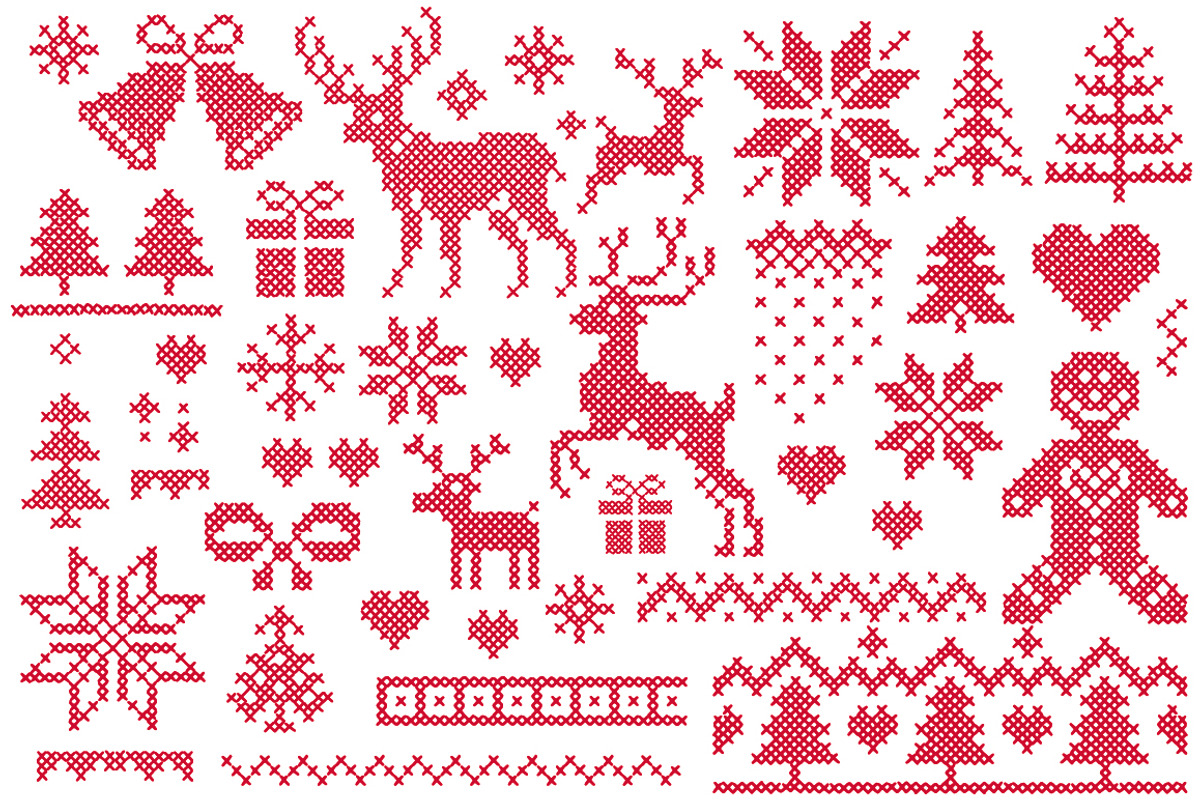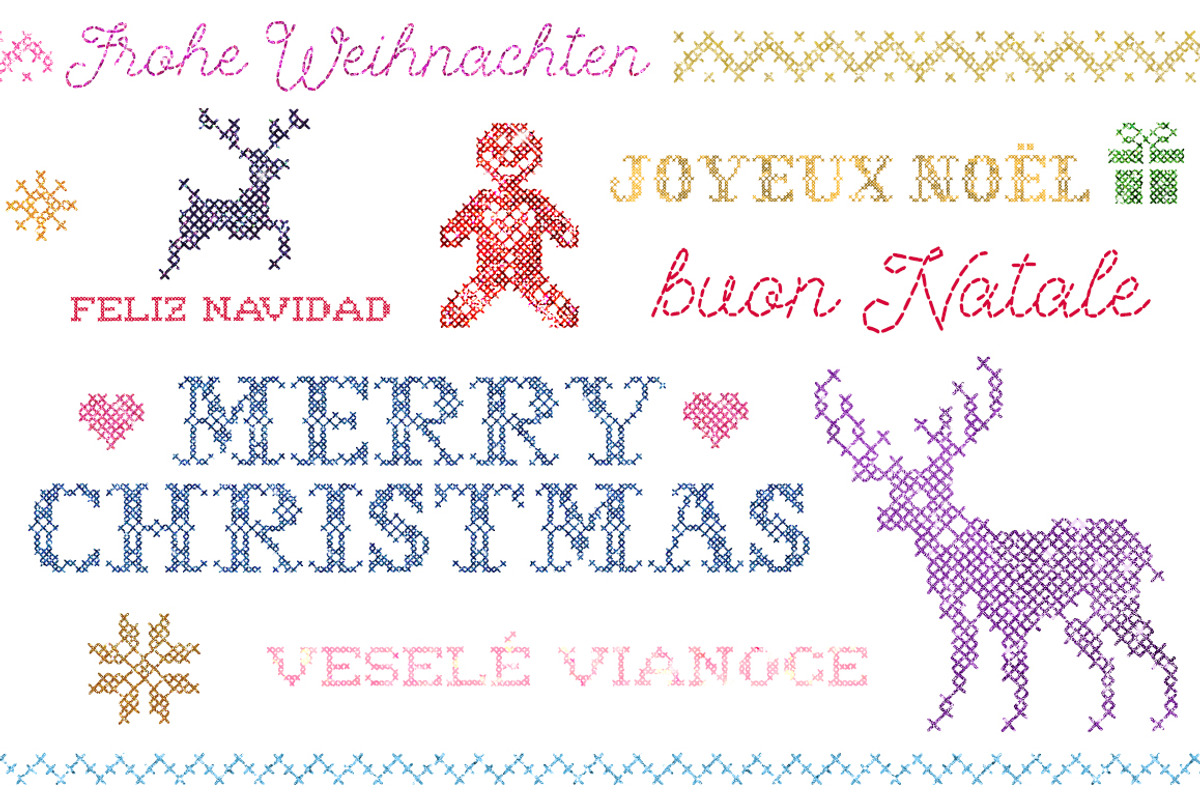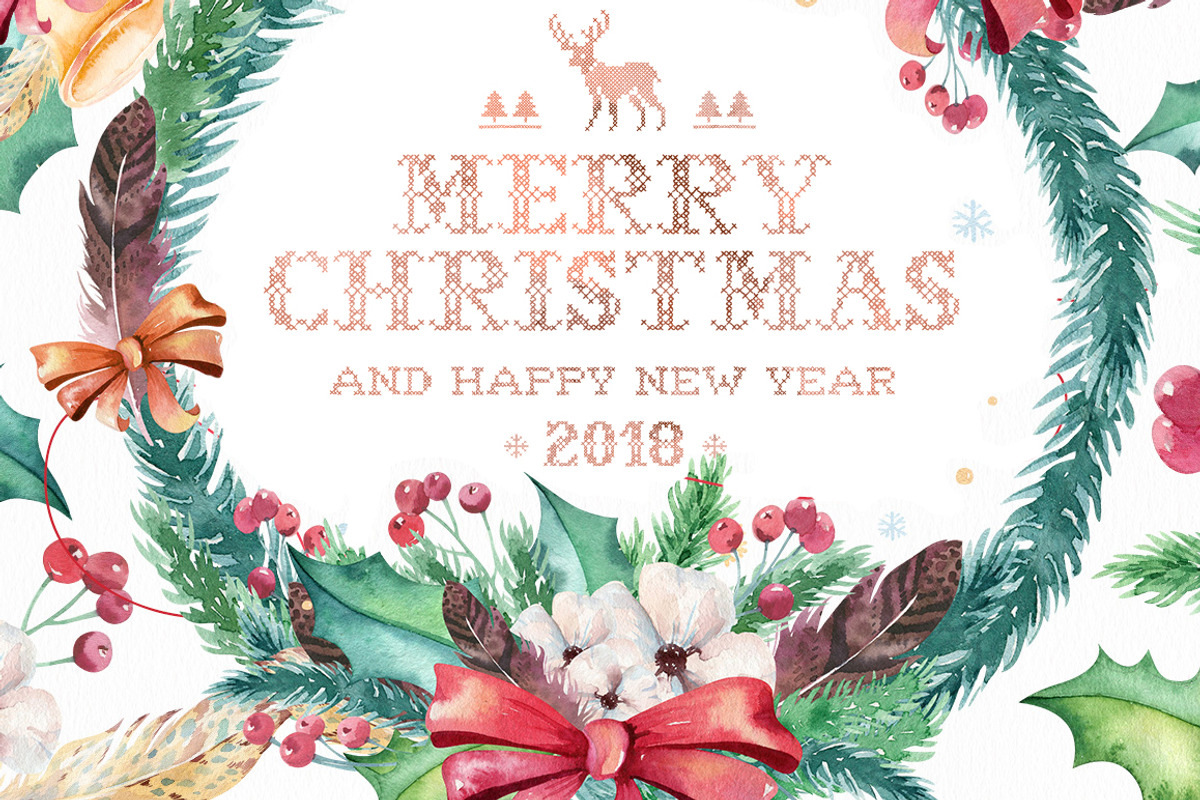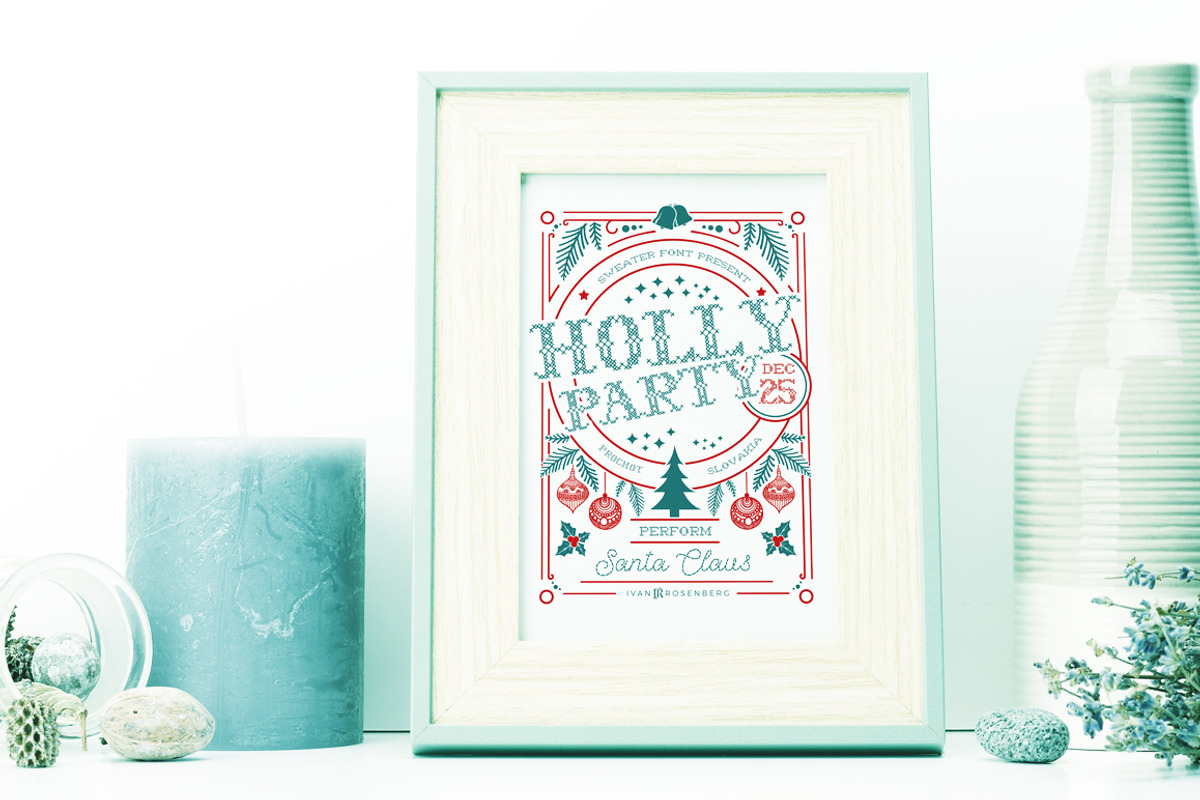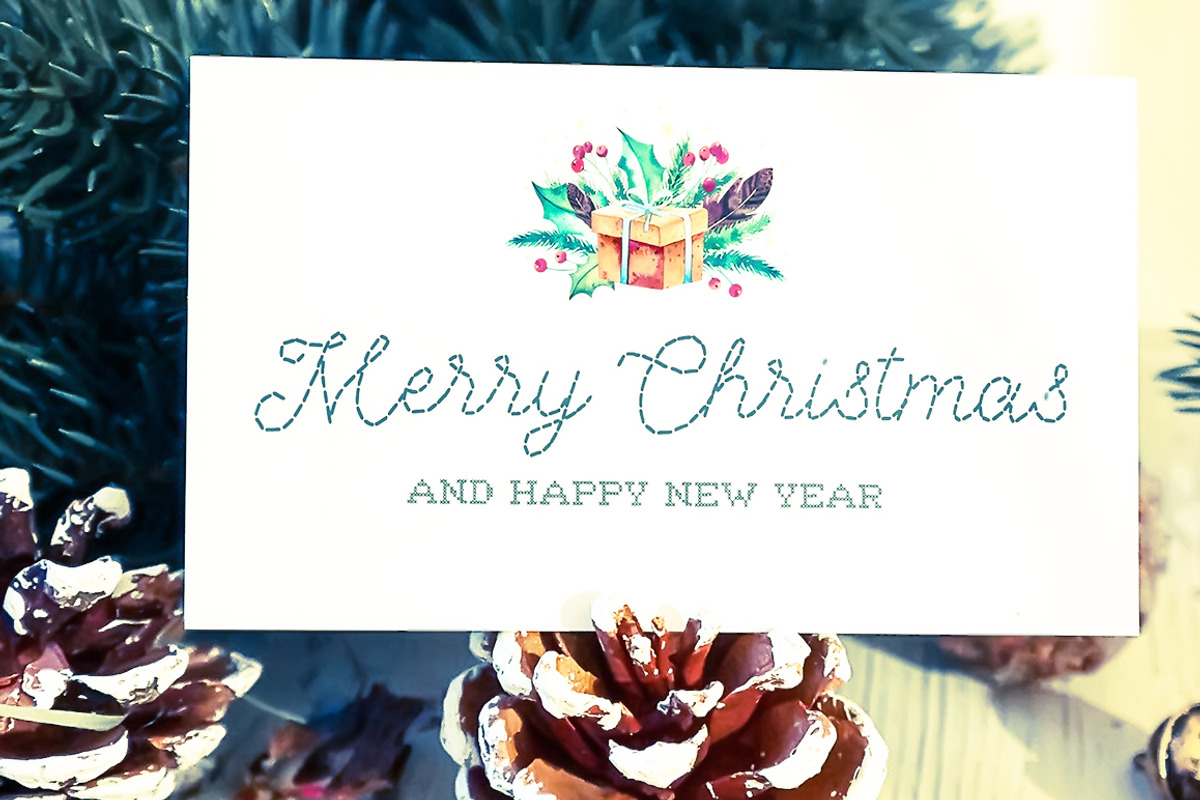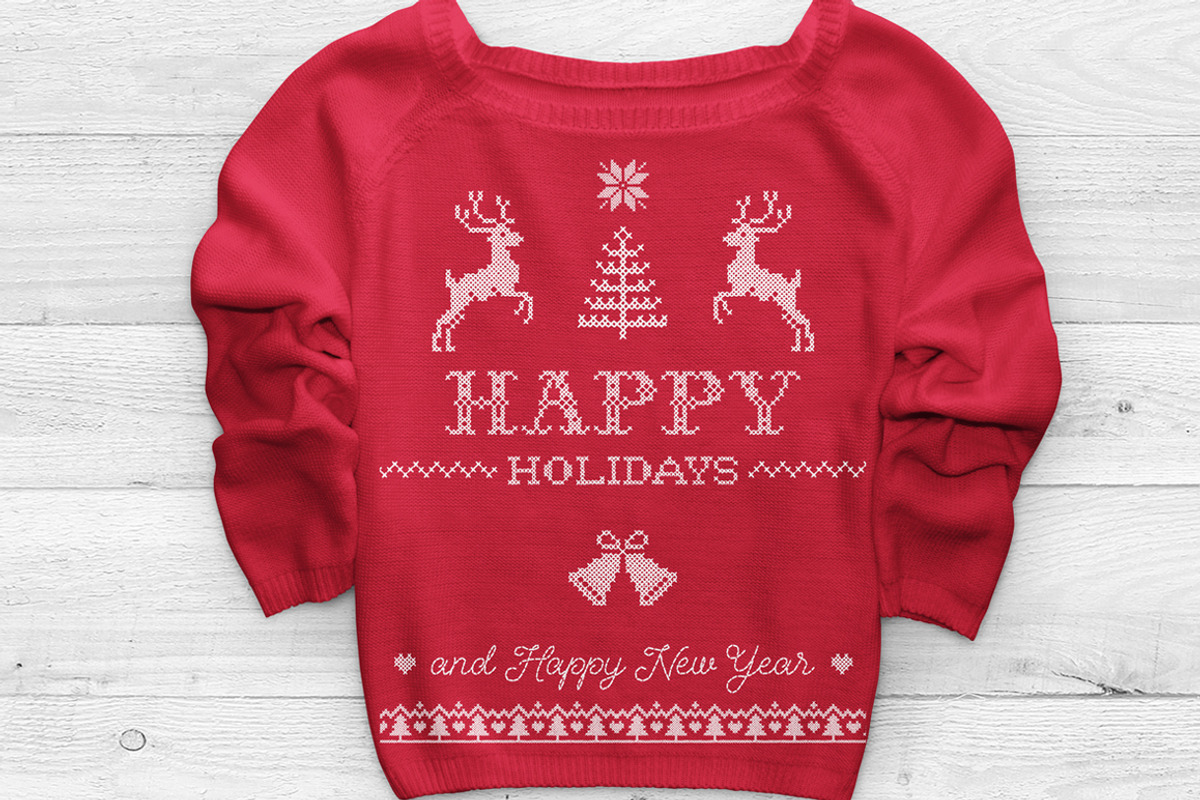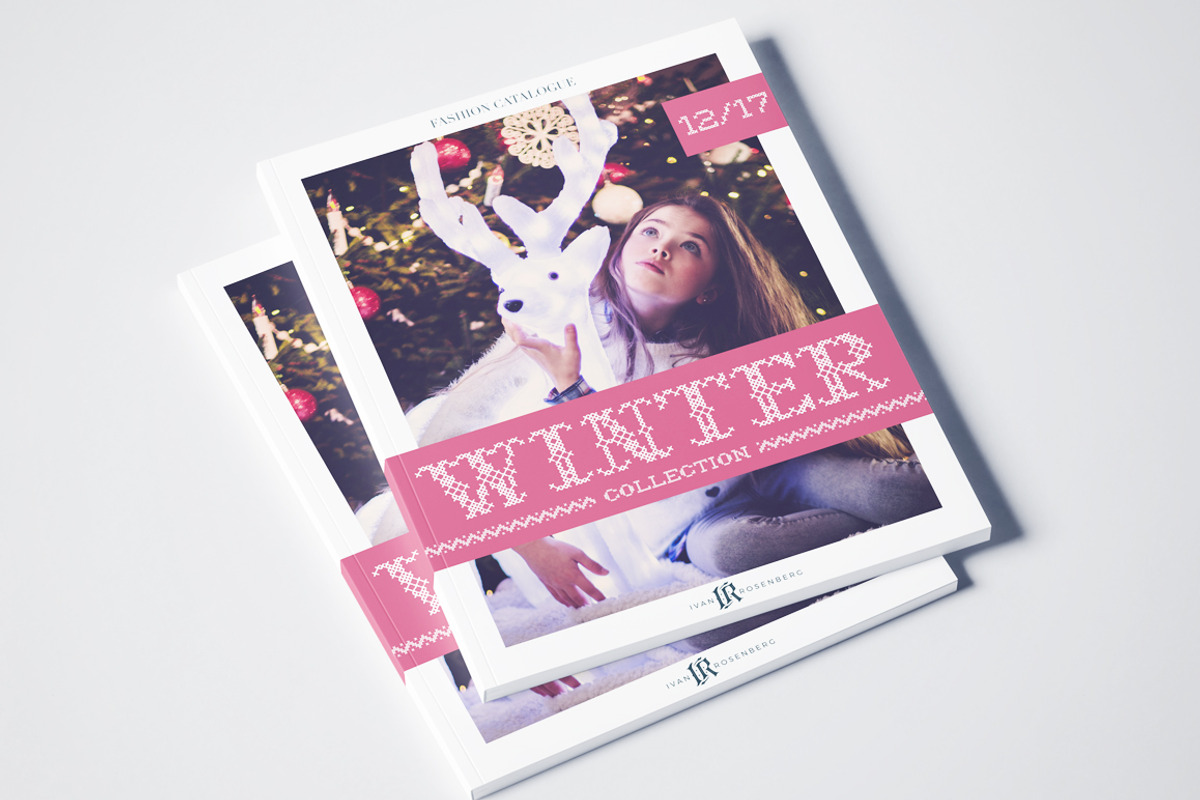
Sweater Font + BONUS
Sweater Font is a set of 3 fonts with "SWEATER" effect. Is ideal for any Christmas graphic, for example invitations, gift cards, facebook headers with Christmas promotions, shirts, wallpapers etc.
- Sweater Decorative
- Sweater Script
- Sweater Slab Serif